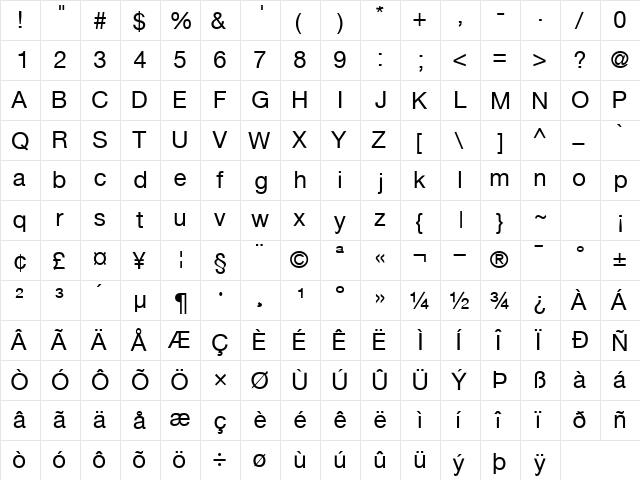
ContextRepriseSSK Regular
Design Context for ContextRepriseSSK Typeface
ContextRepriseSSK offers clean, dependable letterforms without strong stylistic allegiance, making it a practical choice for designers who need flexibility.